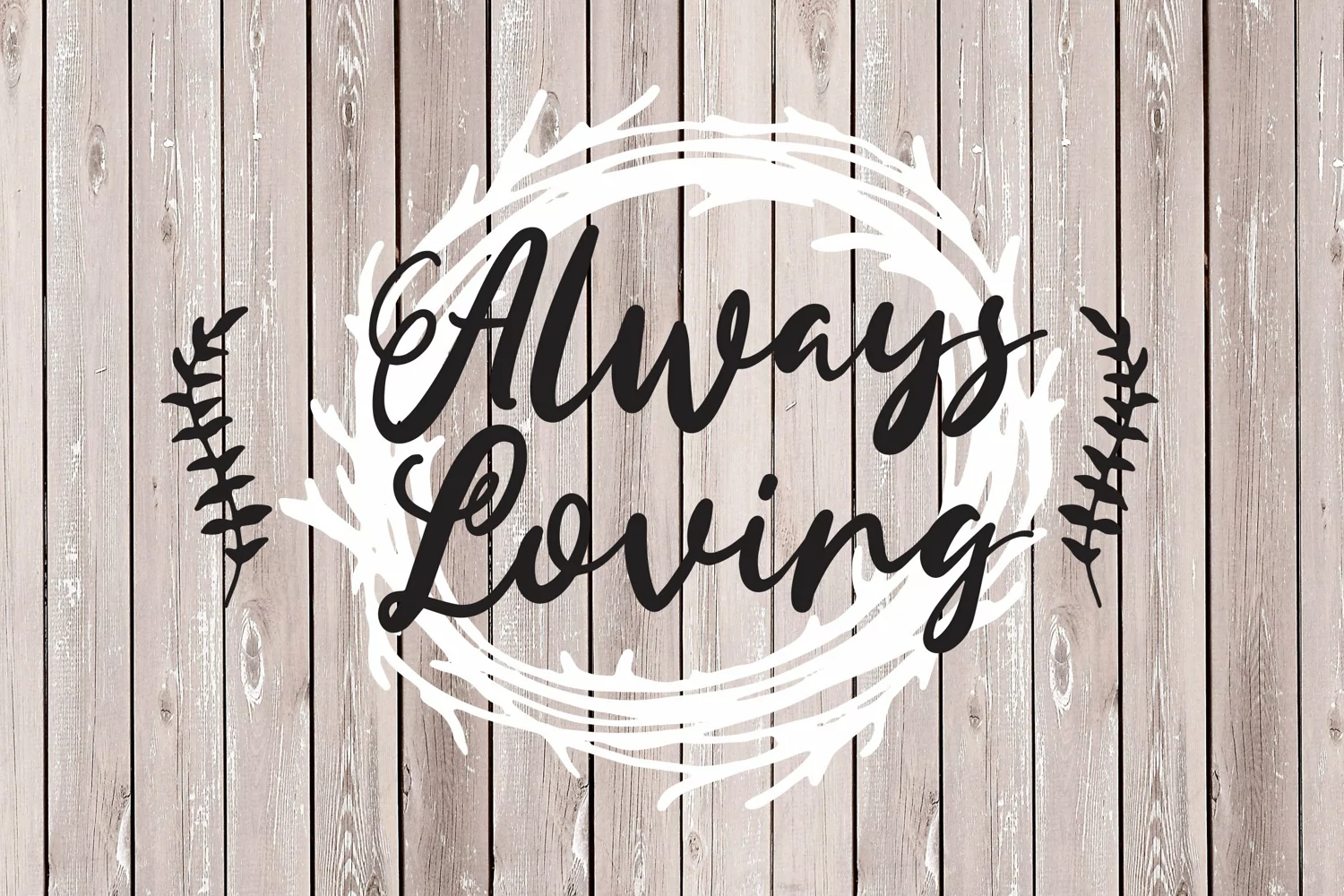
Backyard Palace - Beautiful Handlettering Font that contain lowercase, uppercase, symbol, and also support multi language. There’s a lot ligatures in this font. This Font also comes with ligatures, alternates and many more. this font suitable for fashion, branding, catalog and other design what you want.